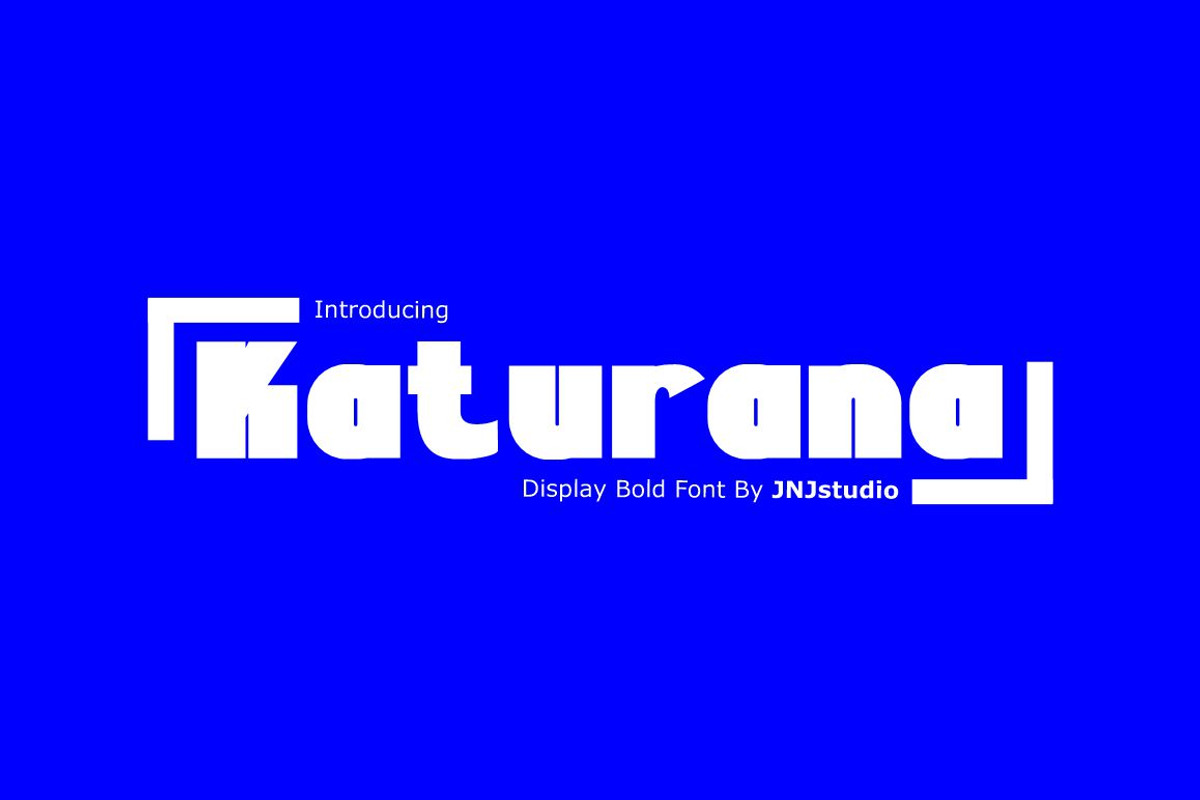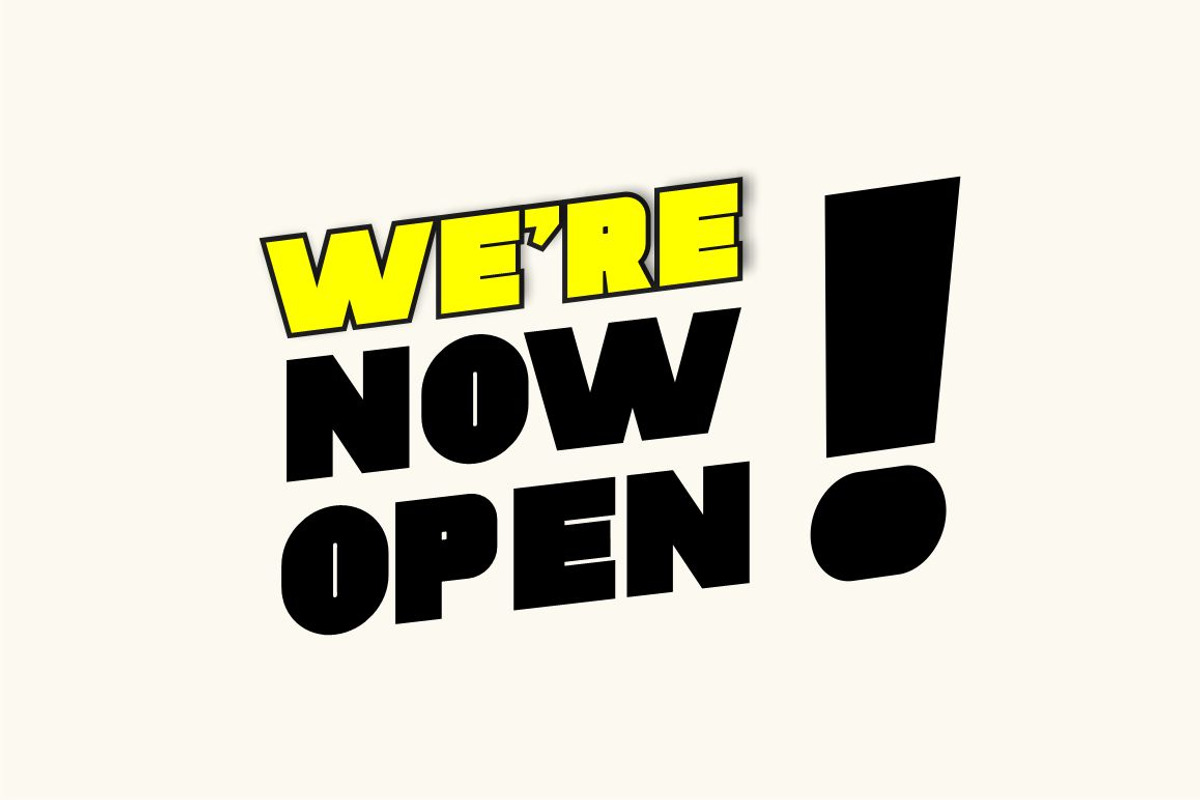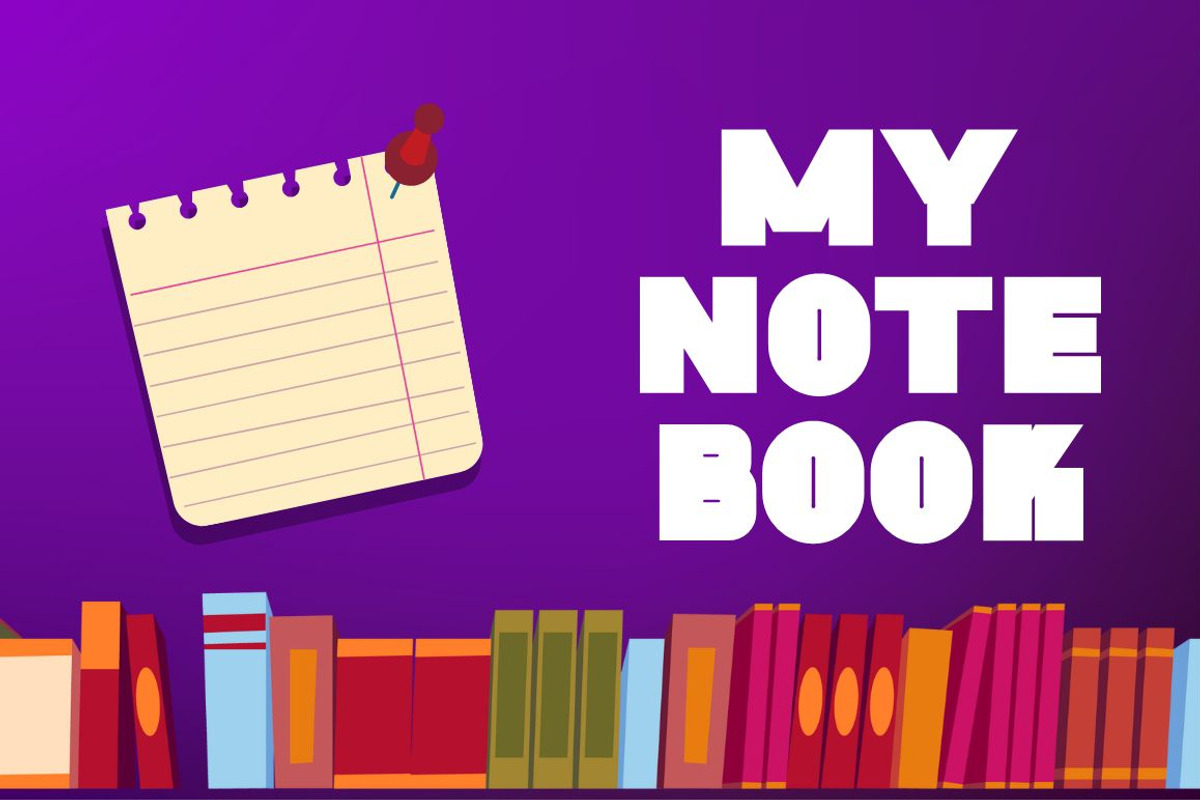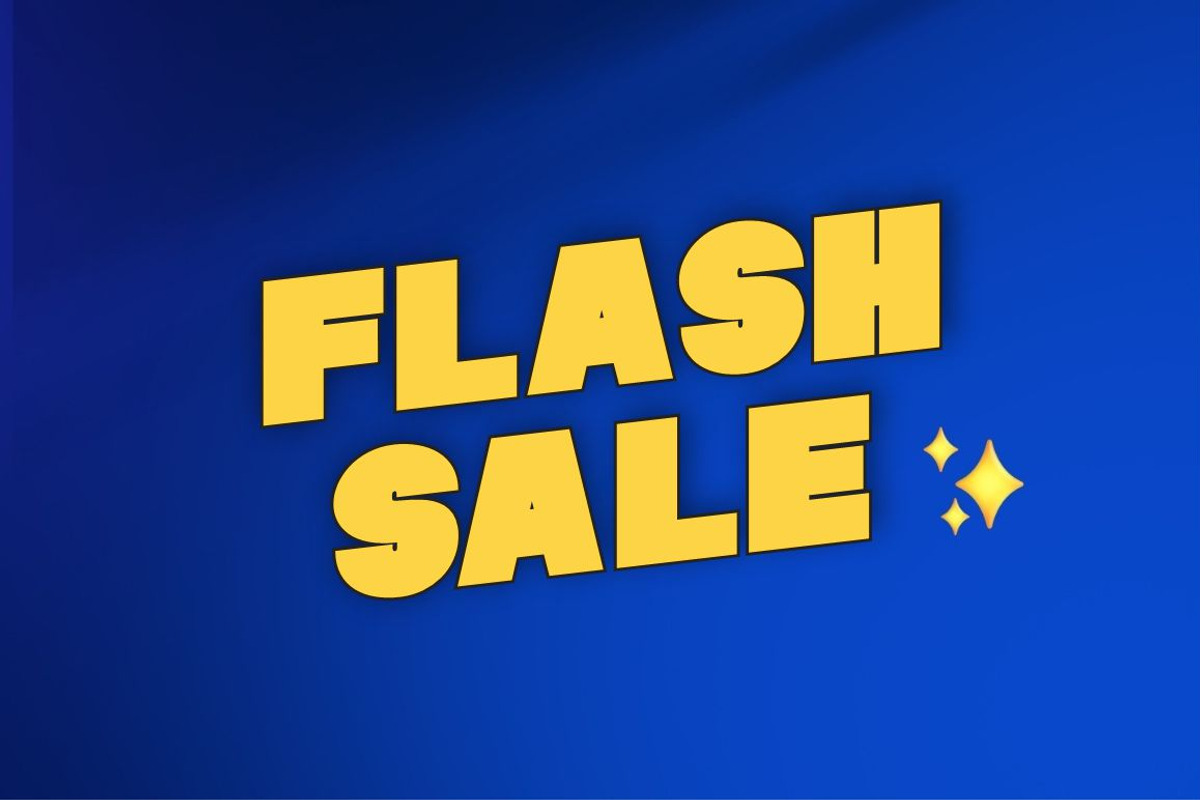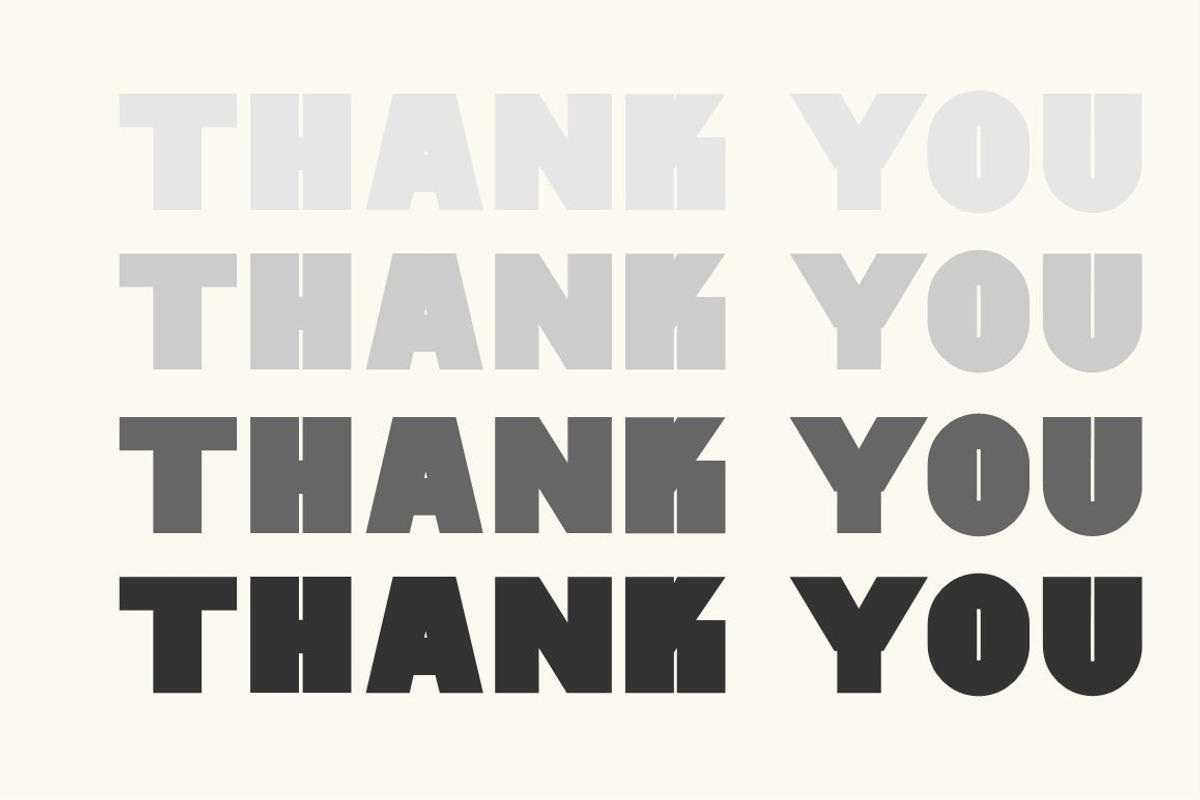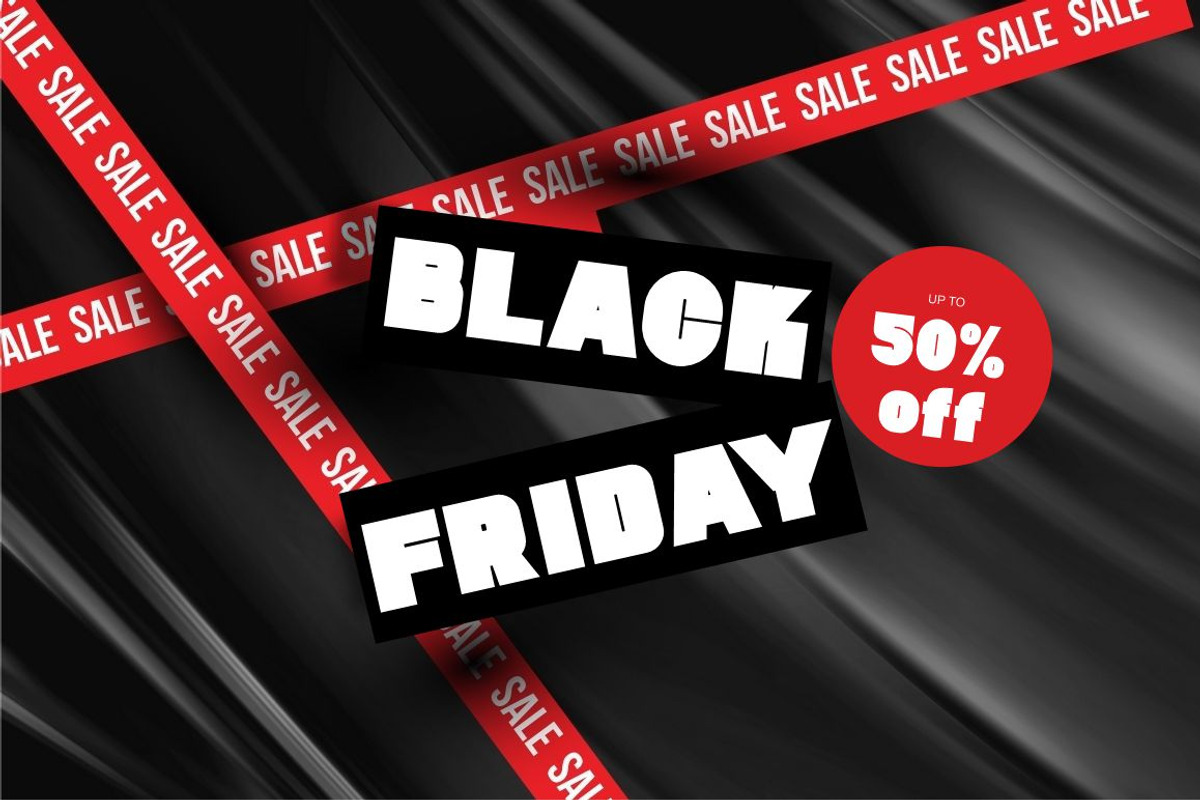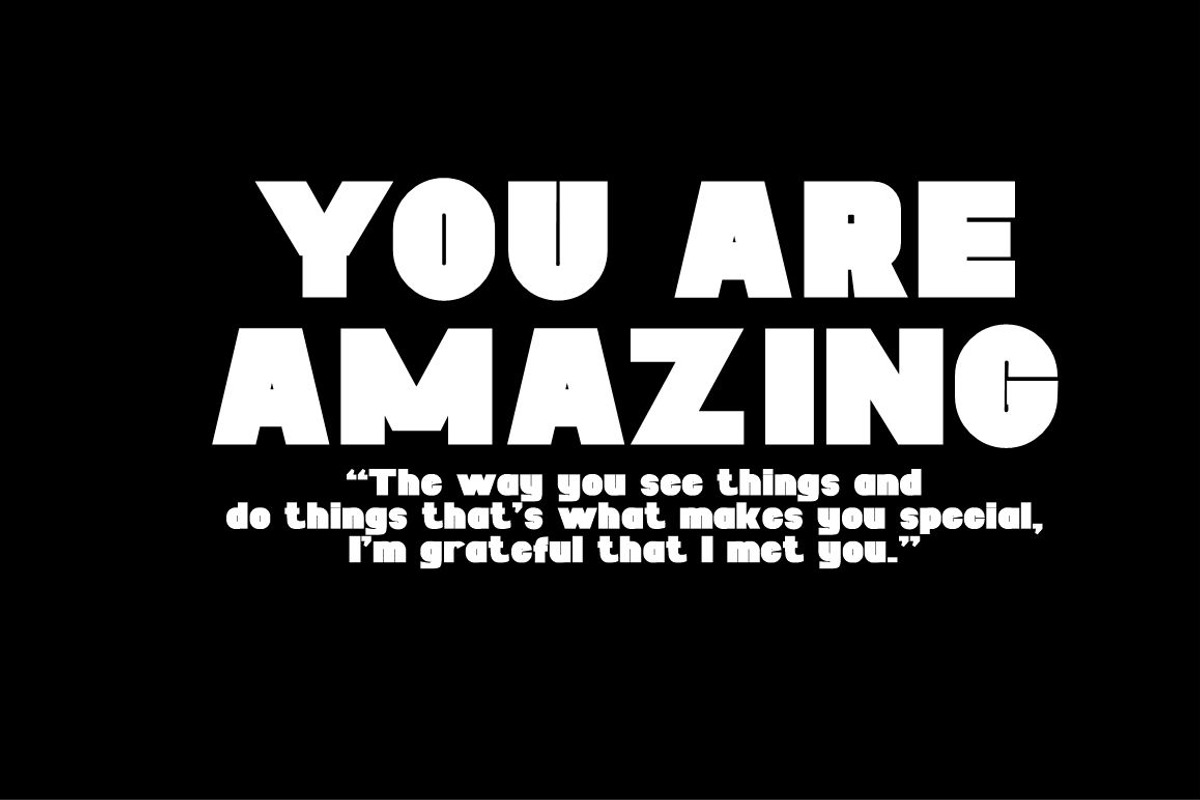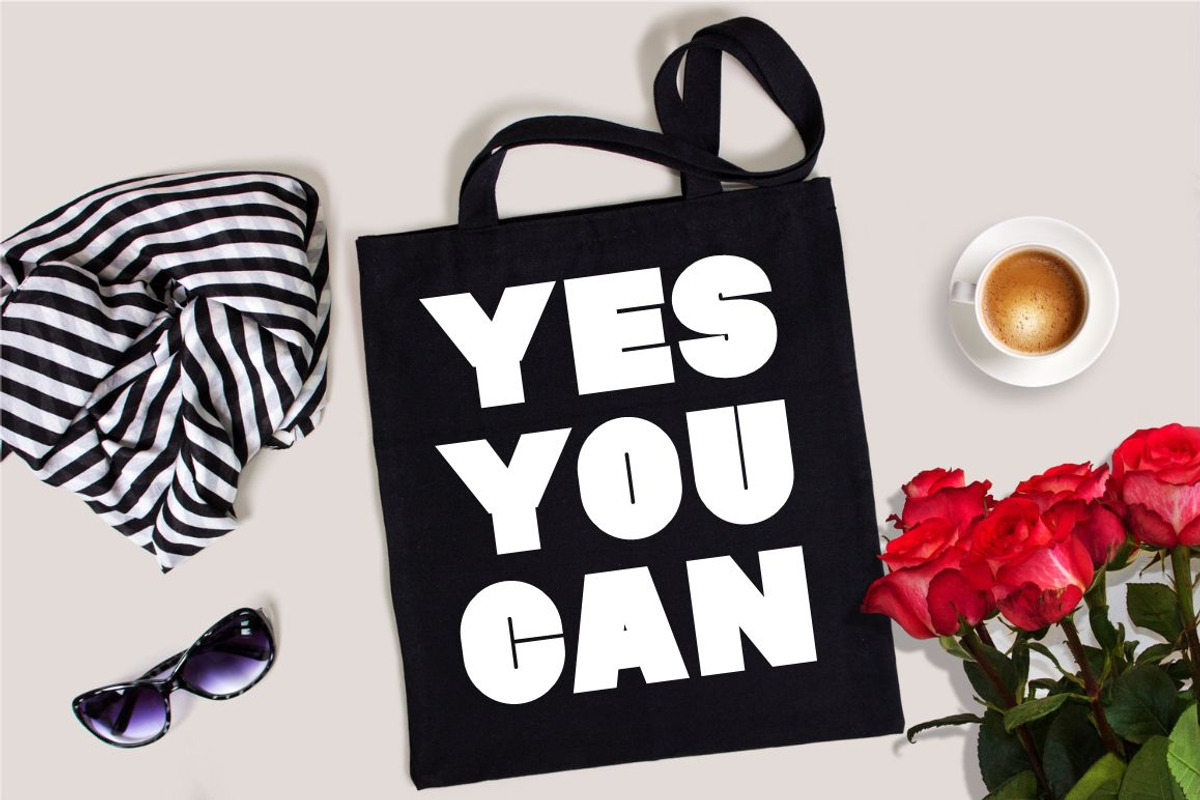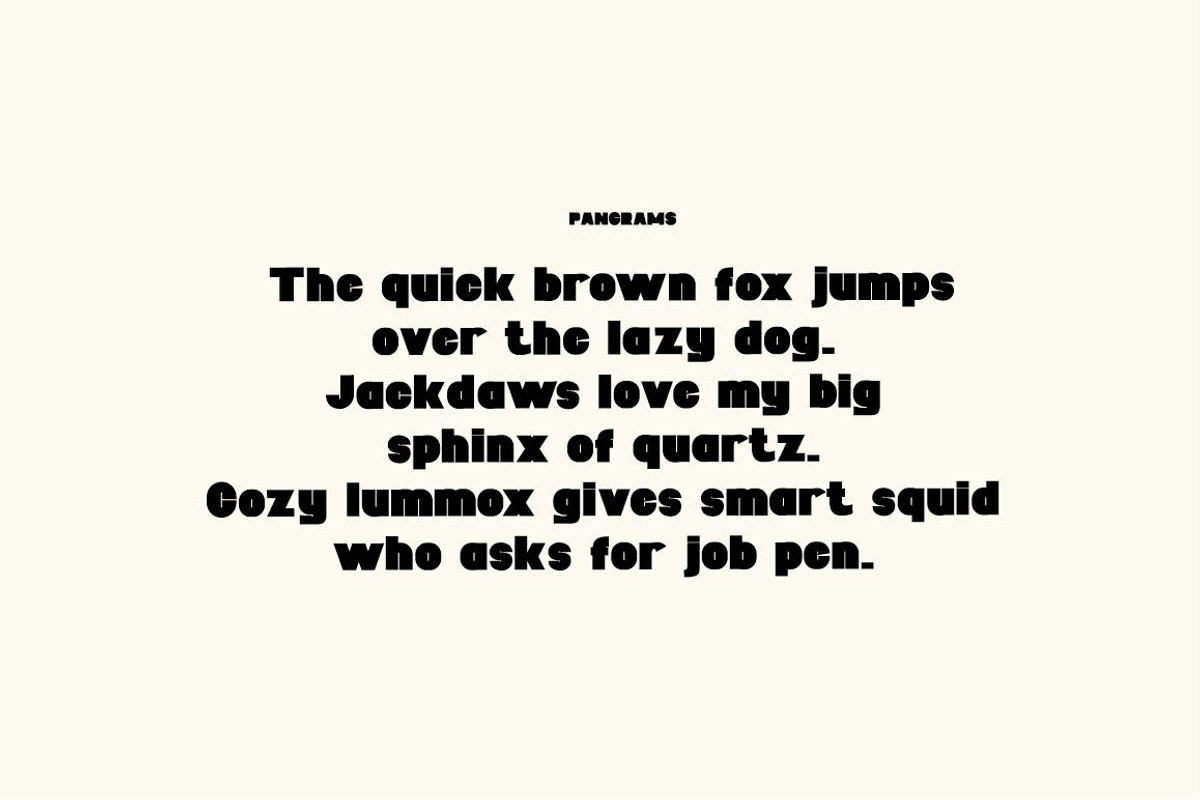
Katurana Display Font
Introducing Katurana is a bold display font designed to make a statement. With its thick, commanding strokes and sleek geometric structure, Katurana stands out in headlines, posters, and branding projects where visibility and impact are key. The font features sharp, angular edges combined with smooth curves, giving it a modern, dynamic feel. Its well-balanced proportions and strong, defined characters ensure readability even at larger sizes, while still maintaining a sense of style and sophistication.
Perfect for logos, banners, or any design that needs a bold and memorable touch, Katurana exudes confidence and authority. Its versatility allows it to fit in both contemporary and edgy designs, making it a must-have for designers seeking a powerful, eye-catching font.